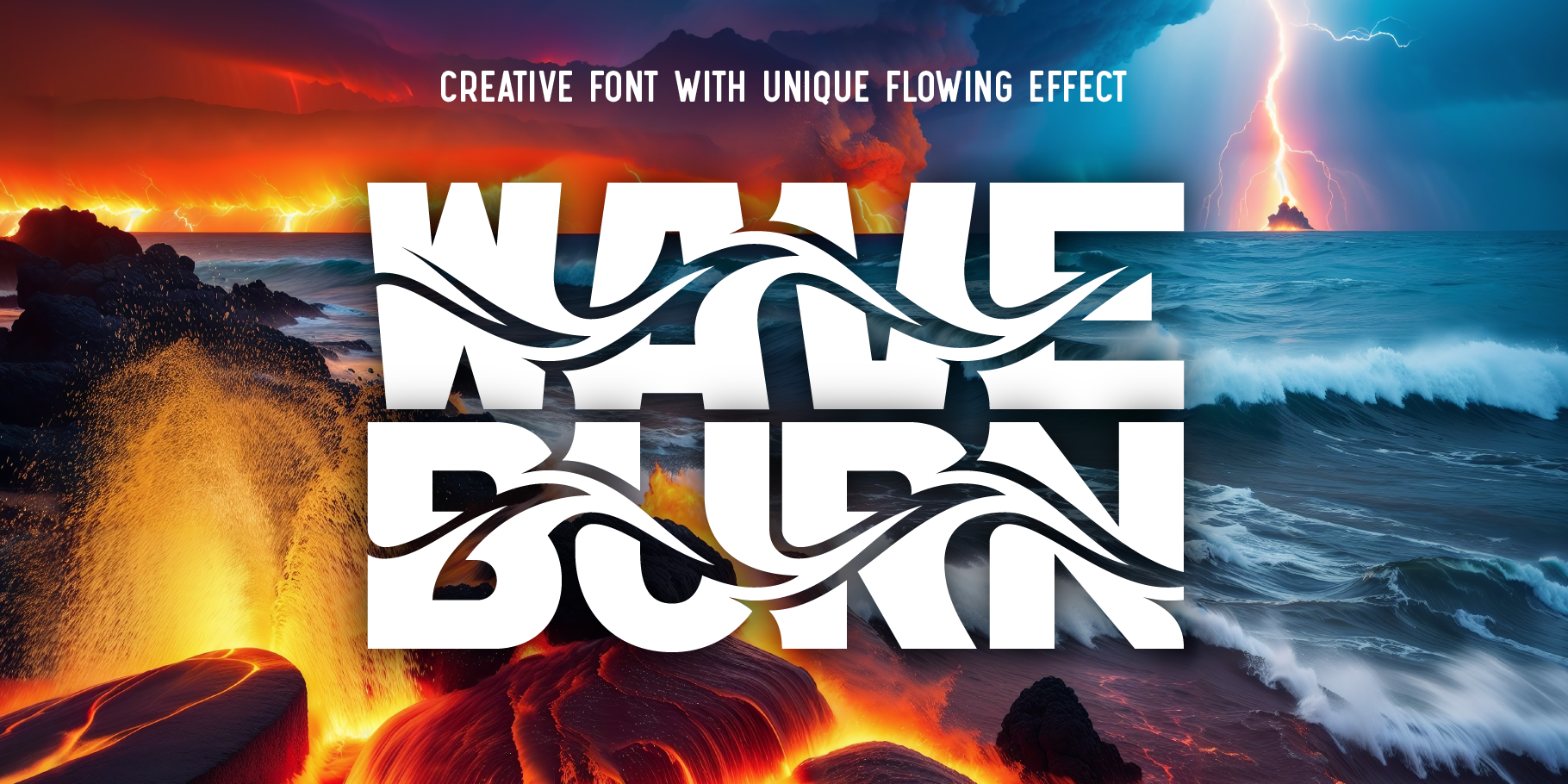
The Wave Burn Font is ideal for surfing lifestyle brands, beach culture communications, ocean sports promotions, coastal event materials, wave-riding equipment marketing, surf shop identities, beach festival graphics, and dynamic water sport applications that require oceanic energy with surfing character and coastal sophistication.
What makes the Wave Burn Font Free Download so exciting is its exceptional ability to capture the raw power and fluid energy of ocean waves through typography that embodies both the burning passion of dedicated surfers and the endless motion of water that shapes coastal culture around the world. This typeface features dynamic letterforms with wave characteristics that suggest crashing surf, burning sun, and the exhilarating freedom that comes from riding the perfect wave while embracing the ocean's untamed energy. Its coastal aesthetic speaks to surf communities and beach enthusiasts who live for the intersection of water and fire, making it perfect for surf brands, coastal businesses, and ocean-focused organizations requiring typography that projects both wave authority and burning authenticity.
The Wave Burn Font family encompasses fluid weight variations from Regular to Bold, each maintaining the font's signature oceanic character and surfing sophistication. The collection includes Medium and Bold styles with enhanced wave characteristics that reinforce the font's coastal appeal and surf culture authority. This dynamic font system ensures surf brands and coastal businesses have access to typography that conveys genuine ocean energy while creating immediate connection to concepts of wave riding, coastal lifestyle, and burning surf passion excellence.
Perfect for surf equipment companies, beach lifestyle brands, coastal tourism organizations, and creative professionals working on projects that celebrate surf culture and ocean energy with burning coastal passion. The font's wave appeal makes it invaluable for surf marketers, coastal designers, and ocean lifestyle professionals developing communications that must ride the waves of authentic surf culture. Download Wave Burn Font Free Download today and ignite your coastal projects with this exceptional typeface that burns with surf passion while delivering oceanic sophistication and wave-riding authenticity for surf culture communications.